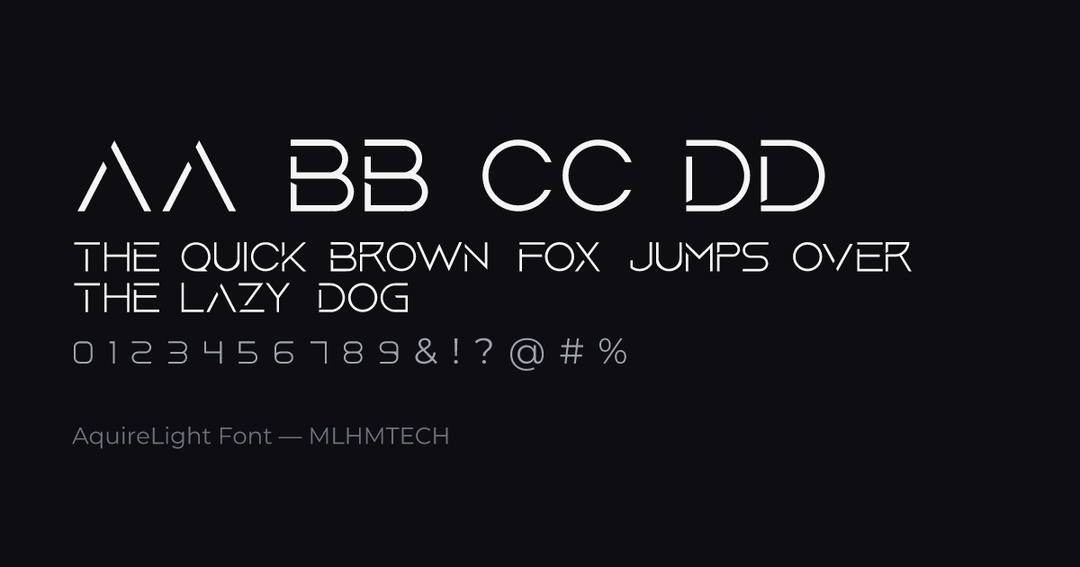
AquireLight Font
AquireLight is a stylish and versatile OTF font suitable for a wide range of creative projects, from logos to invitations.
AquireLight is a beautifully crafted font that brings a touch of elegance and modernity to your designs. Its clean lines and balanced proportions make it ideal for headlines, logos, and branding materials. Whether you're working on a wedding invitation, a corporate presentation, or a social media graphic, this font will elevate your project with its unique character.
With its versatile style, AquireLight can be used for both print and digital designs. Its legibility at various sizes makes it a reliable choice for body text as well as display purposes. Add this font to your collection and give your projects a professional, creative edge.